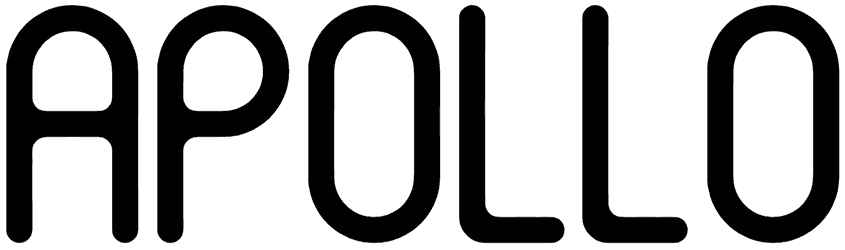
Apollo Font
Apollo can do most of the work for you if you want to go all out and grab everyone’s attention. This sans-serif font has round, easy-to-read typefaces that go well with any simple design on postcards, posters, packaging,…
Apollo can do most of the work for you if you want to go all out and grab everyone’s attention. This sans-serif font has round, easy-to-read typefaces that go well with any simple design on postcards, posters, packaging, and banners. Not having smooth angles and curves has created a new and attractive feeling in this font, creating an intimate atmosphere and not distracting from your content.